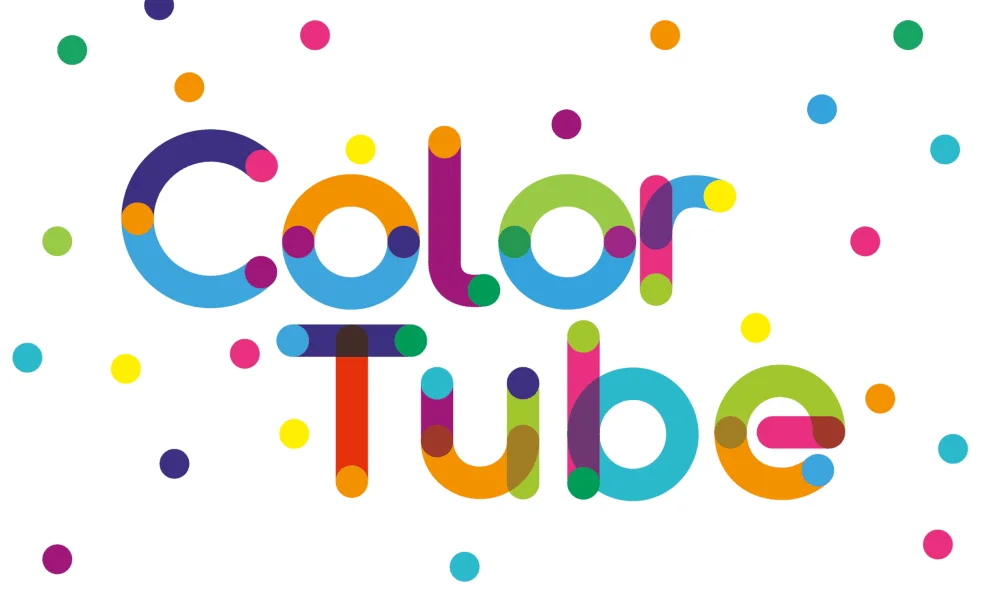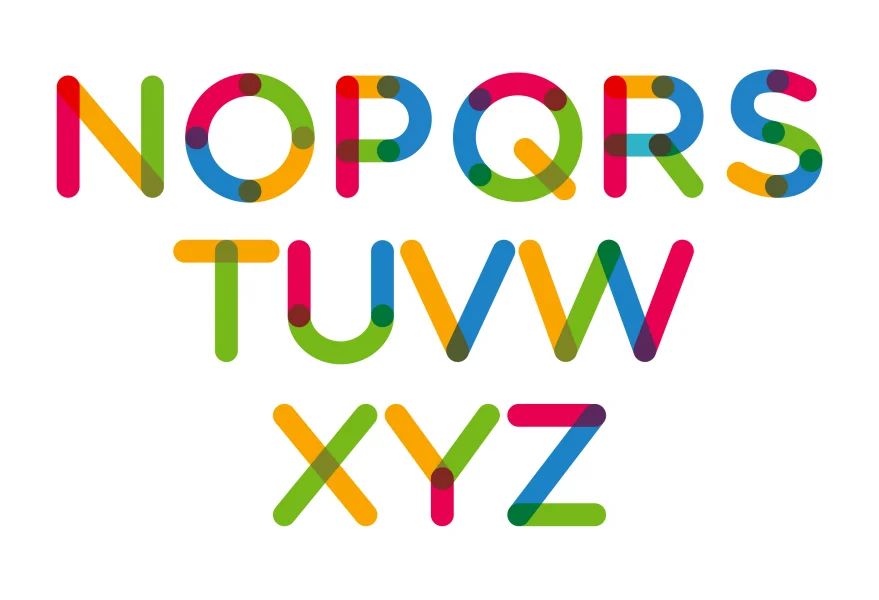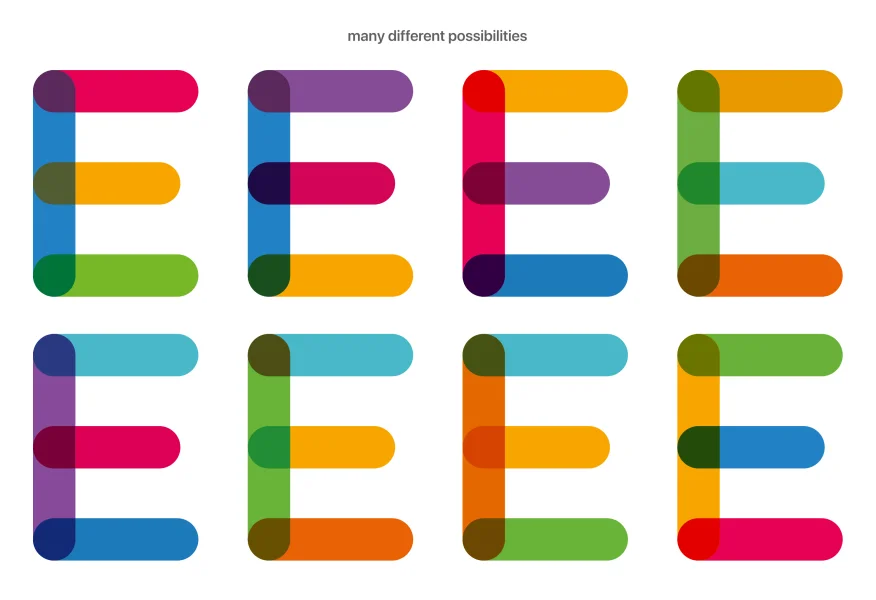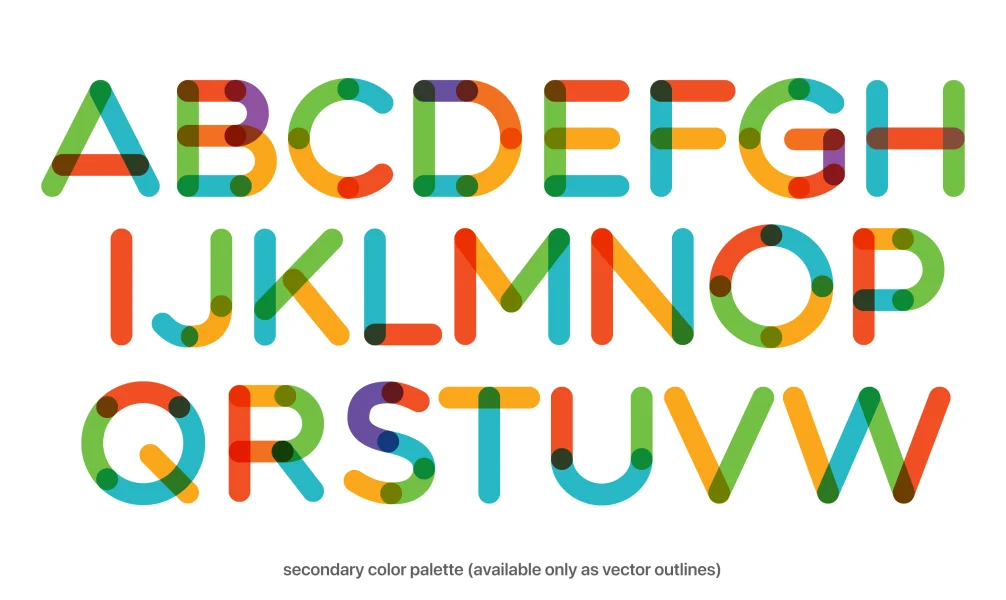
Multicolore is a free SVG colour font (the font preview here on 1001fonts shows the monochromatic version, but if you own a modern image or vector editing program like Adobe Illustrator cc 2018 or higher, you will be able to use it in its full colour).